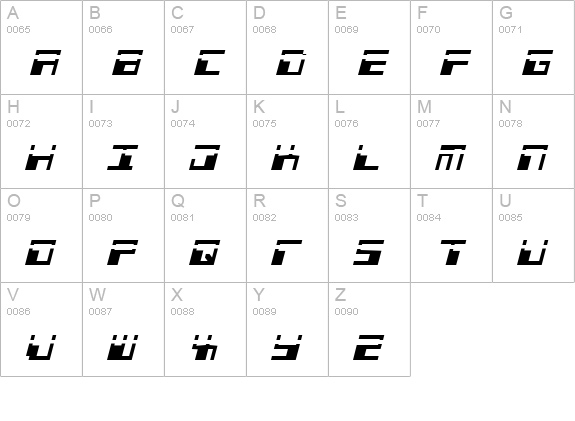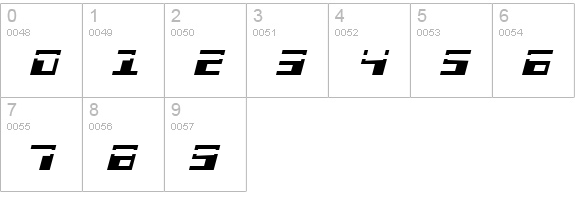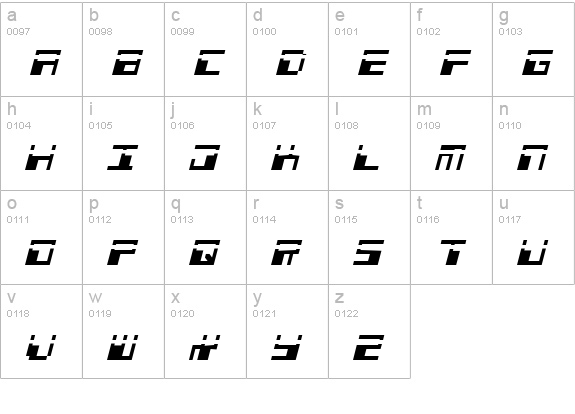
Phaser Bank Laser Italic is a distinctive, italic variant in the Phaser typeface family \xE2\x80\x94 well suited to design and typography projects.
Phaser Bank Laser Italic font is a sleek and futuristic typeface perfect for adding a high-tech touch to your designs. Its sharp, angular lines and bold appearance make it ideal for projects that require a modern and edgy look. The italic style adds a dynamic flair to any text, making it stand out with a sense of movement and energy. Best of all, Phaser Bank Laser Italic font is available for free download at FontsMarket.com. This means you can easily access this cutting-edge font for your personal and commercial projects without any cost. Don't miss out on the opportunity to elevate your designs with this eye-catching typeface that will surely captivate your audience. Download Phaser Bank Laser Italic font now and unleash your creativity!